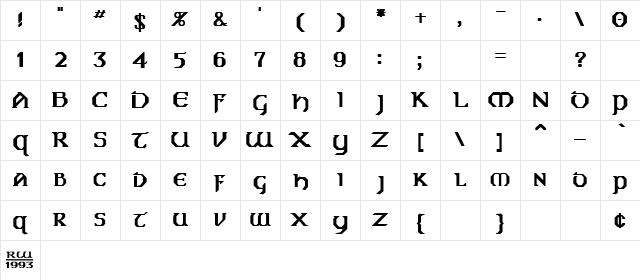
Dublin Bold Free Font
Dublin Bold
Design Context for Dublin
Dublin is a composed and adaptable typeface that performs quietly and consistently across a wide range of design contexts. Its bold stroke weight gives it real presence on the page.